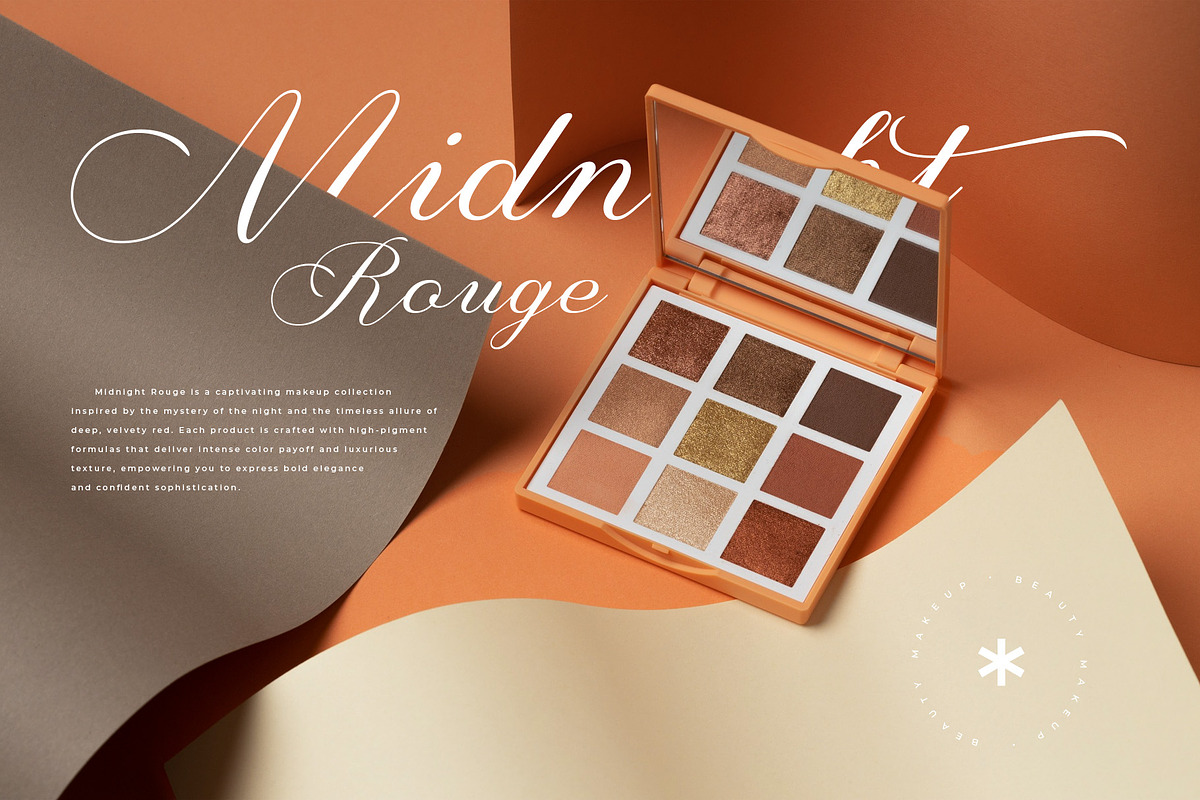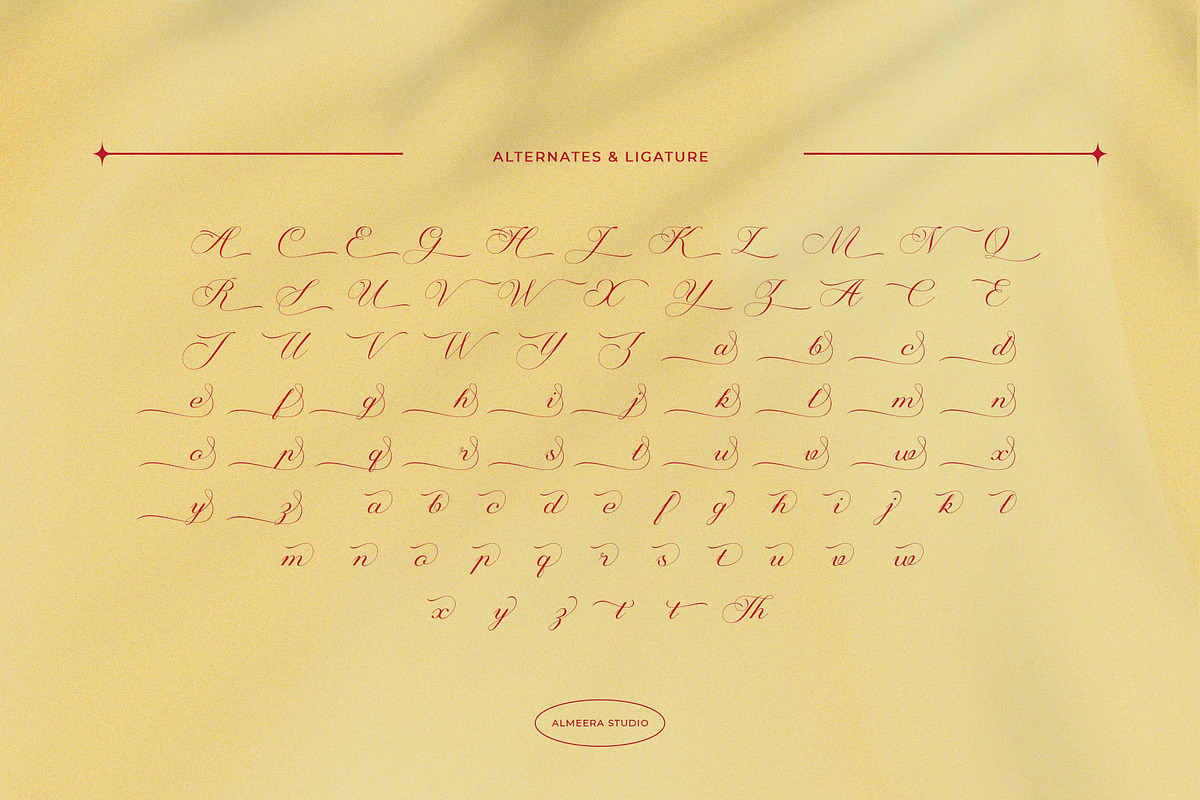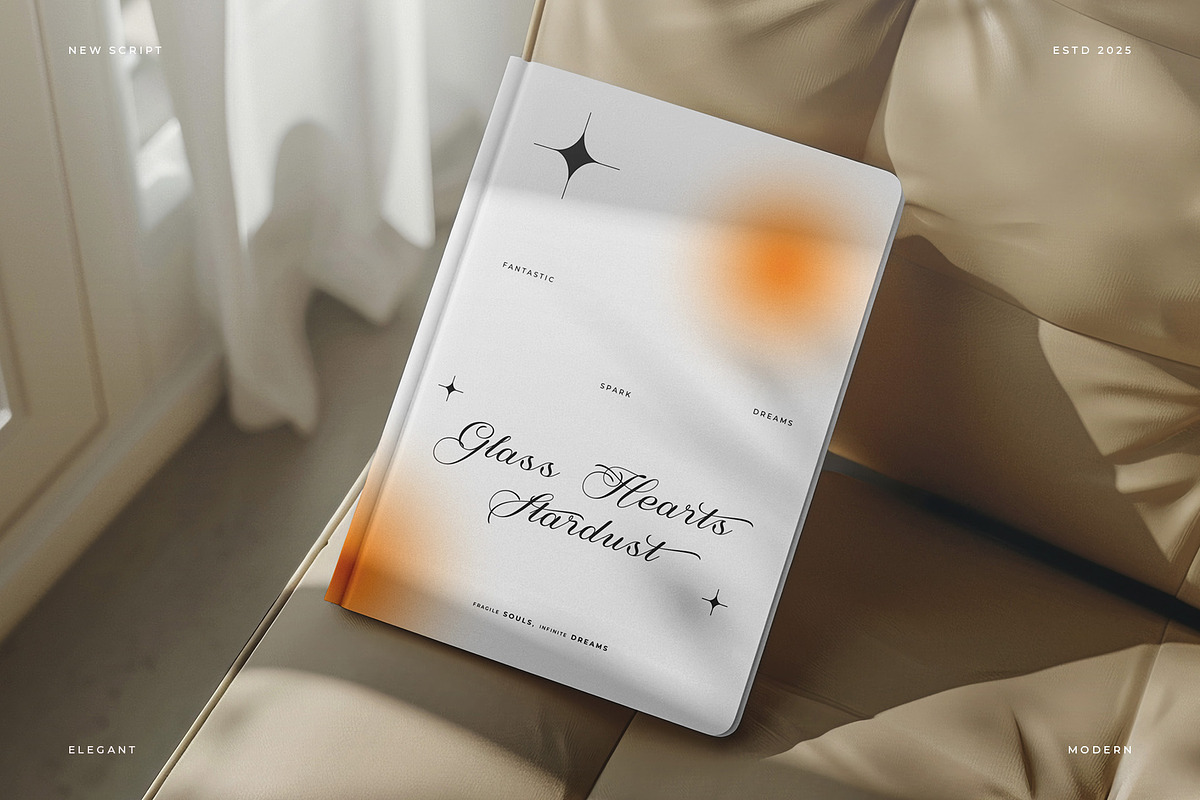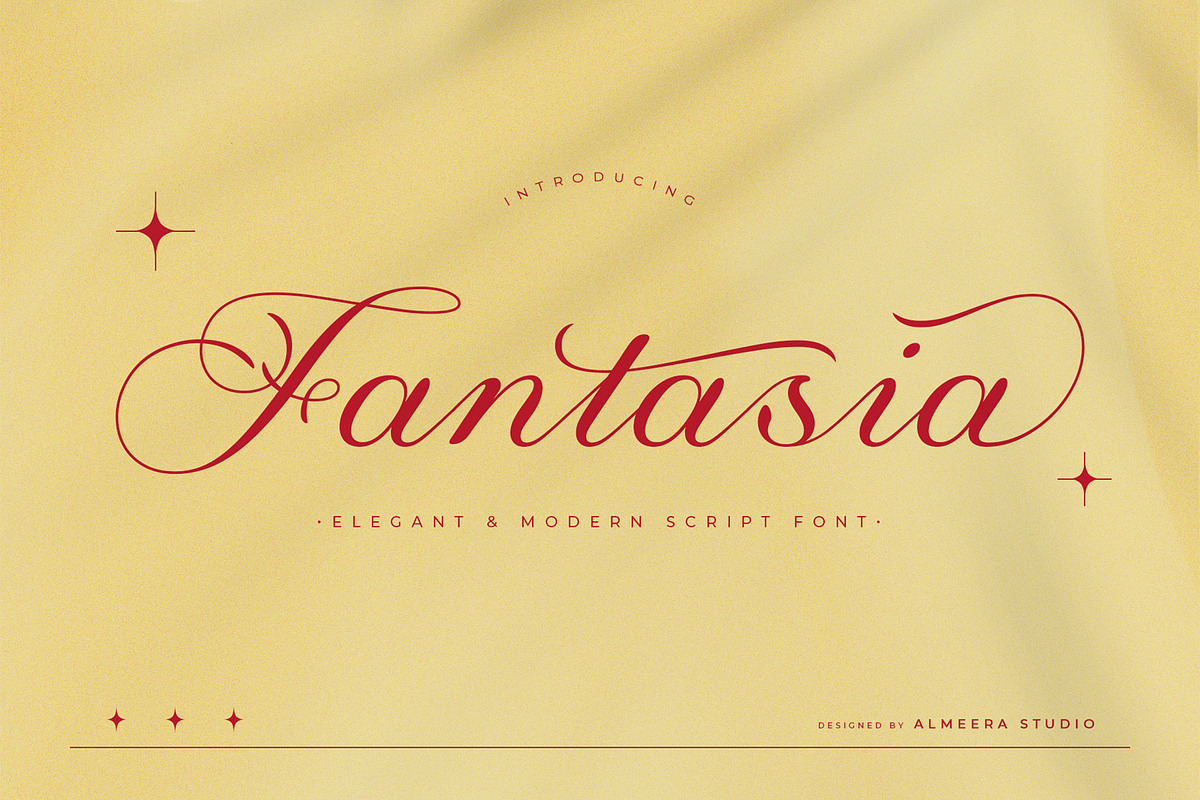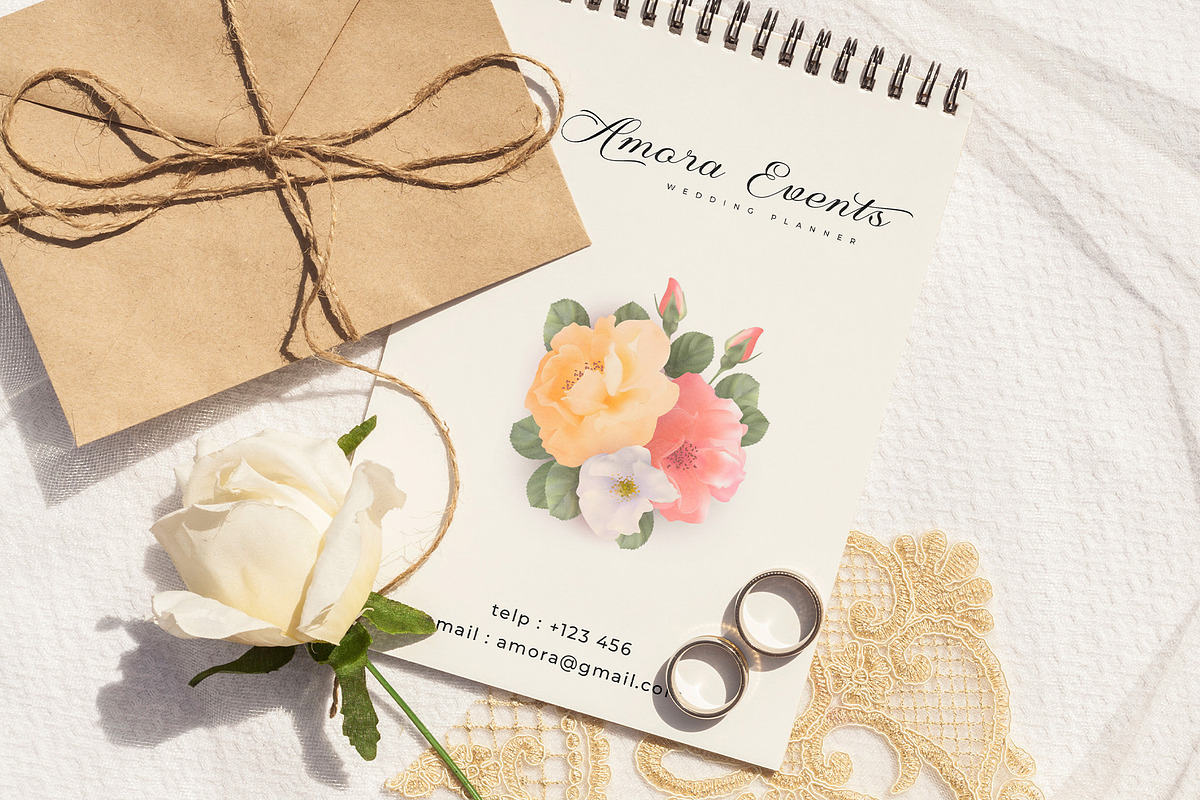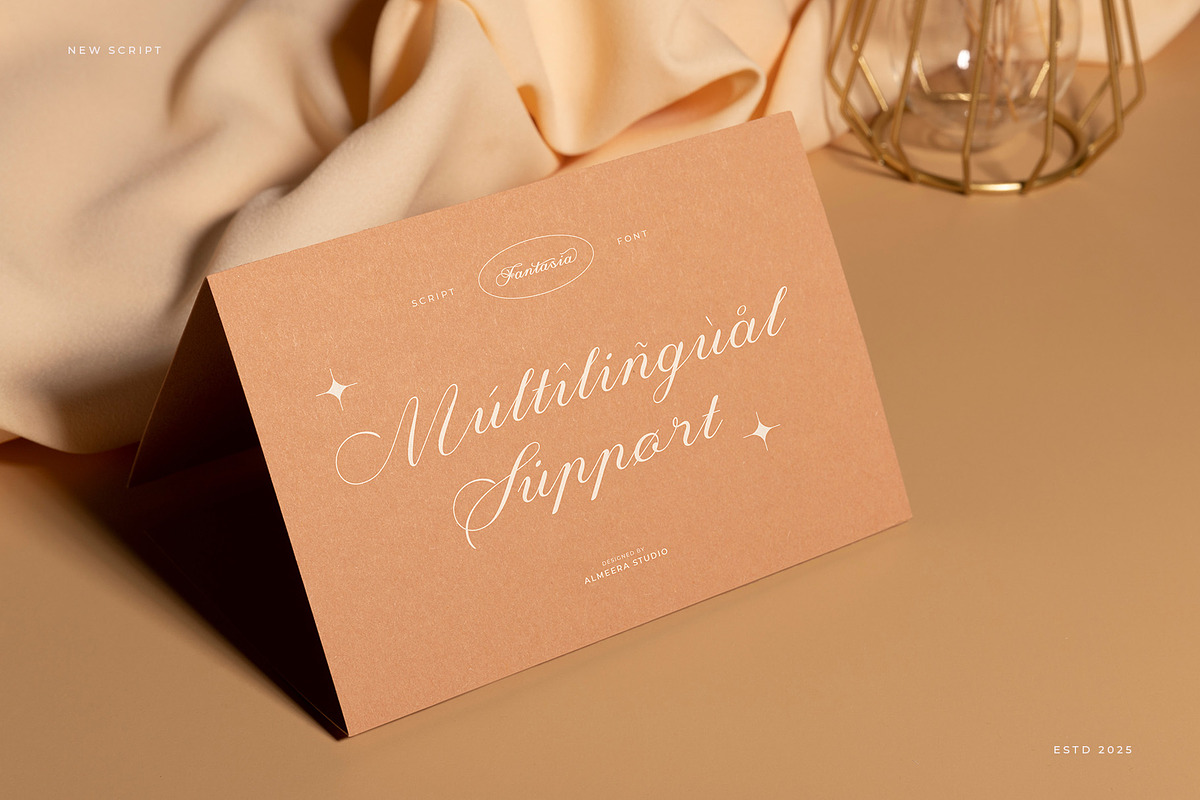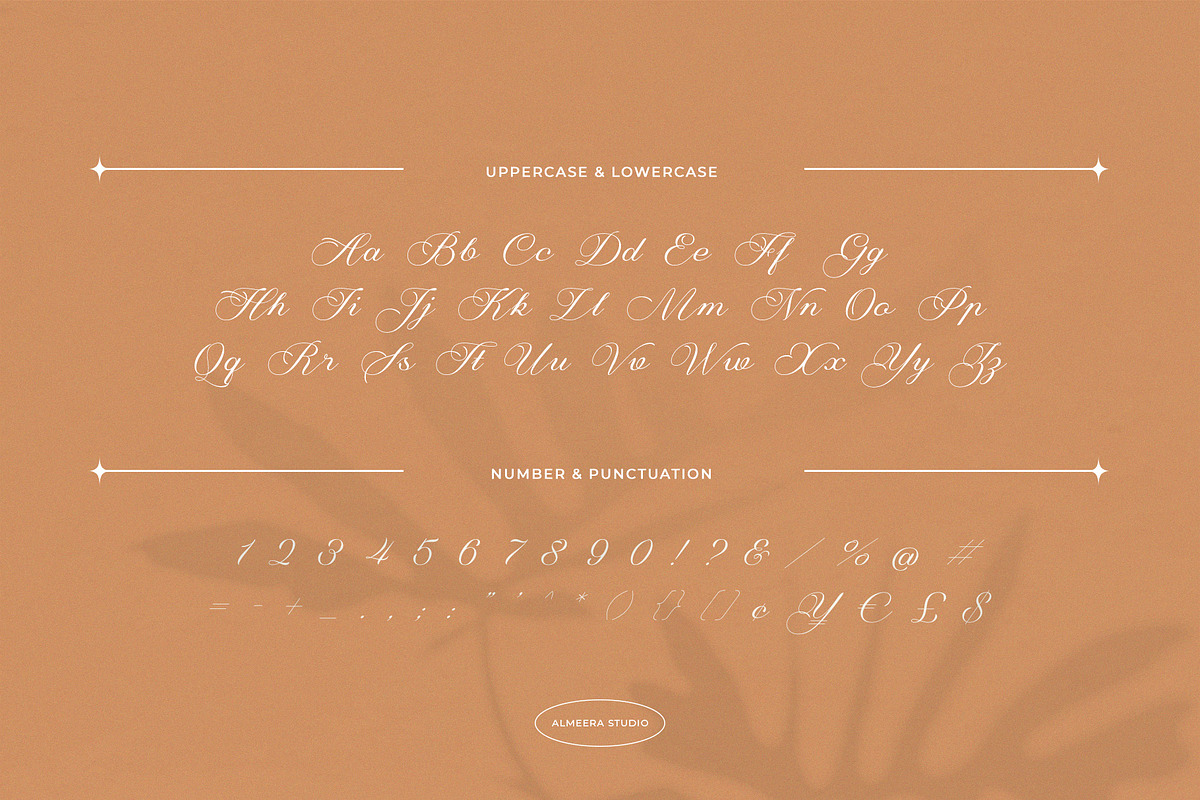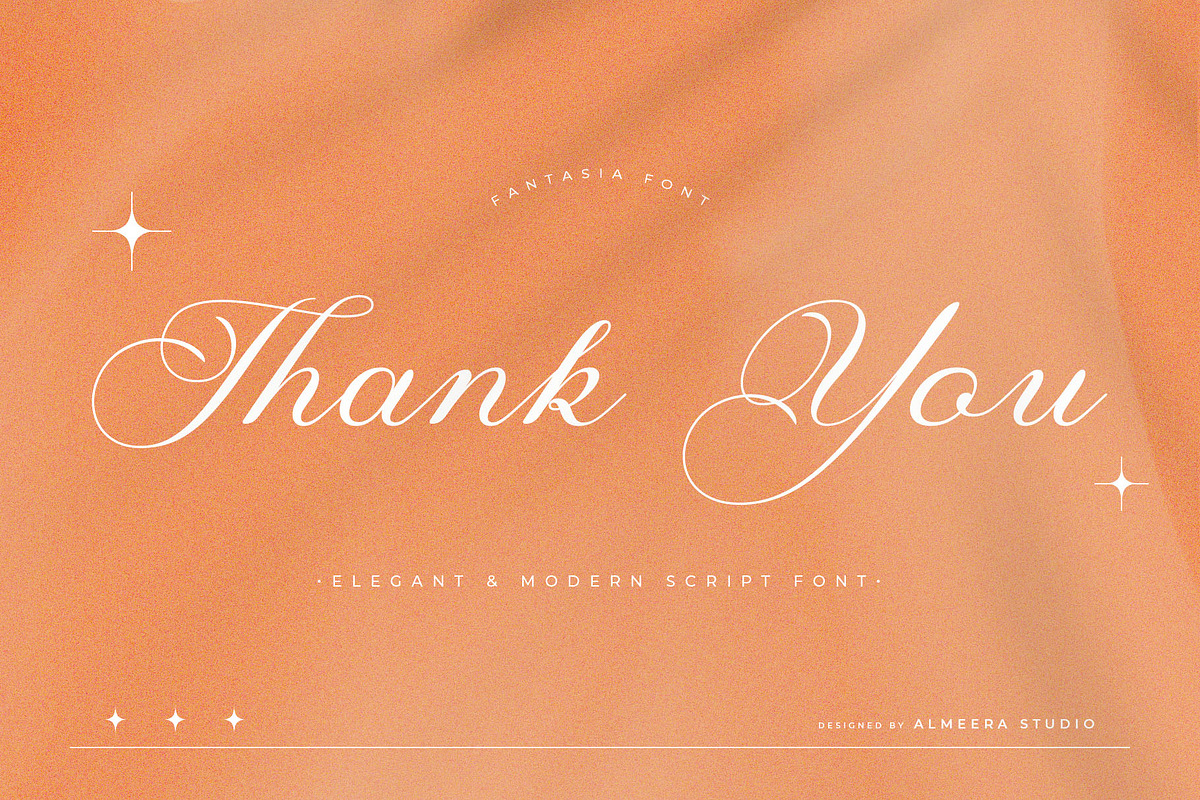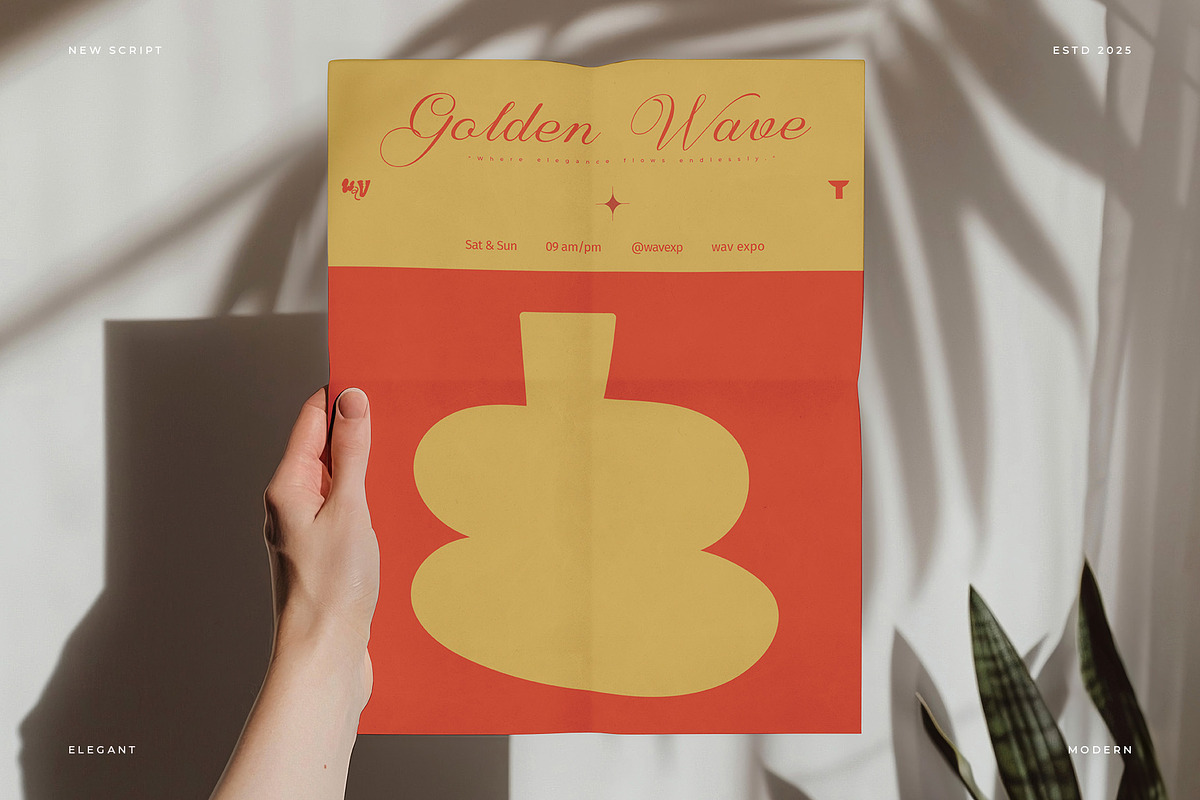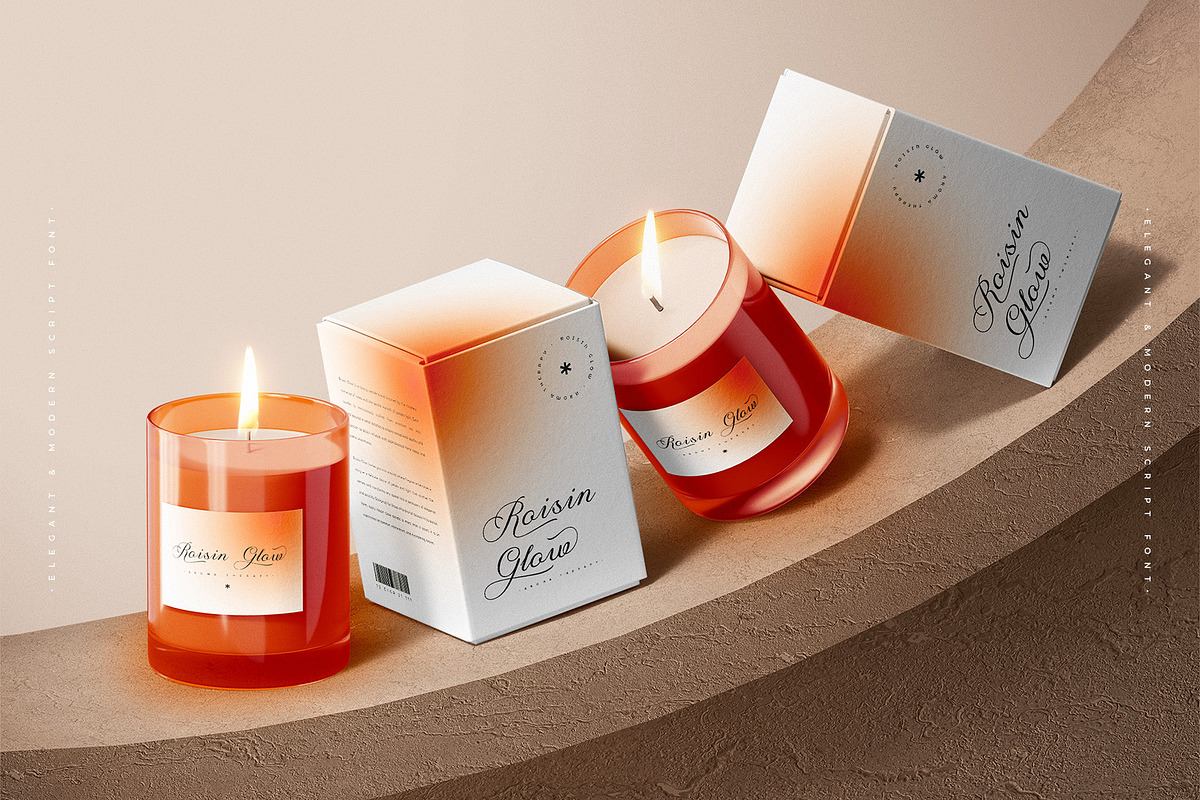
Fantasia – Elegant Script
Fantasia is where elegance meets enchantment. This script font is adorned with delicate strokes and exquisite flourishes, designed to bring a sense of glamour and artistry to your typography. Perfect for luxury branding, wedding stationery, greeting cards, packaging, and fashion campaigns, Fantasia is your key to creating unforgettable impressions. Its refined ligatures add a personal, handcrafted touch, while its timeless beauty makes it versatile for both modern and classic designs. With Fantasia, your words will sparkle with sophistication and creative flair.
- Playful alternates and swashy details
- Numerial